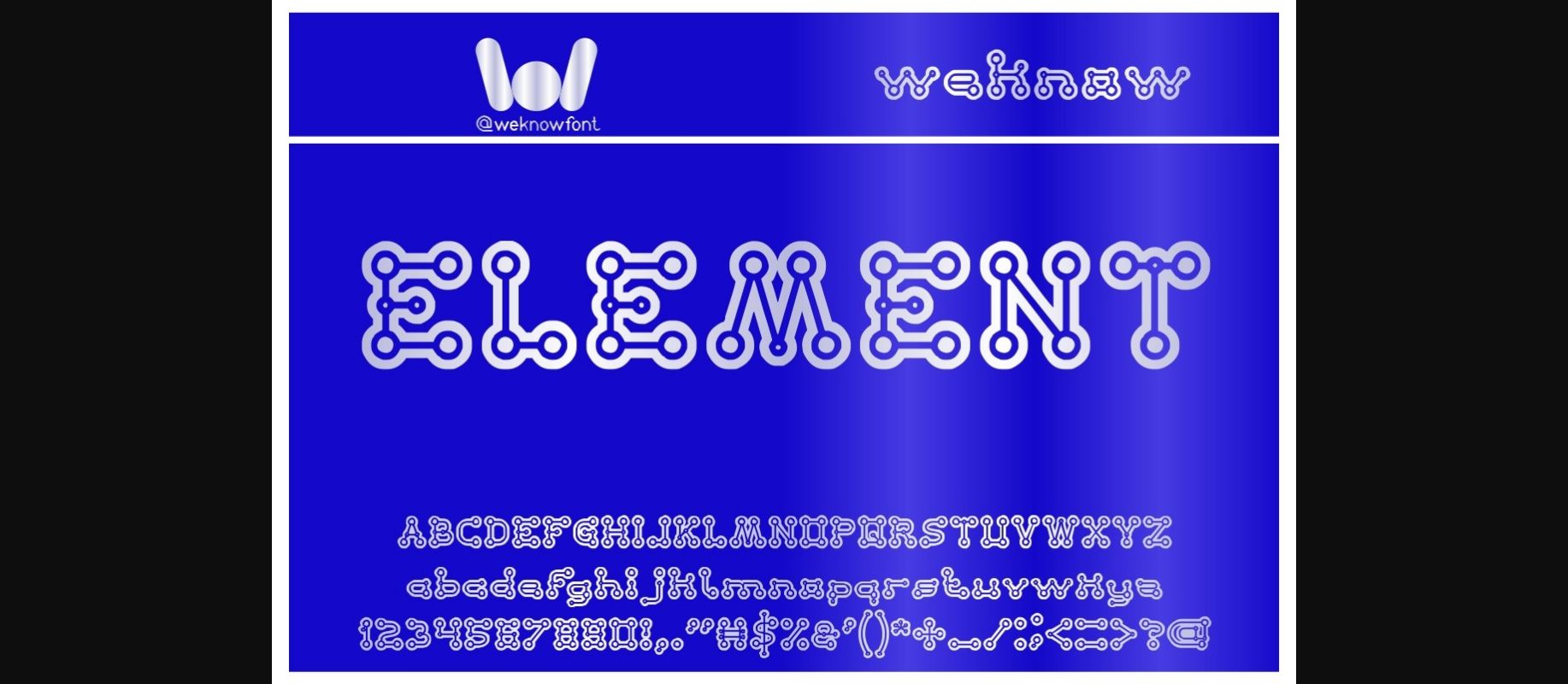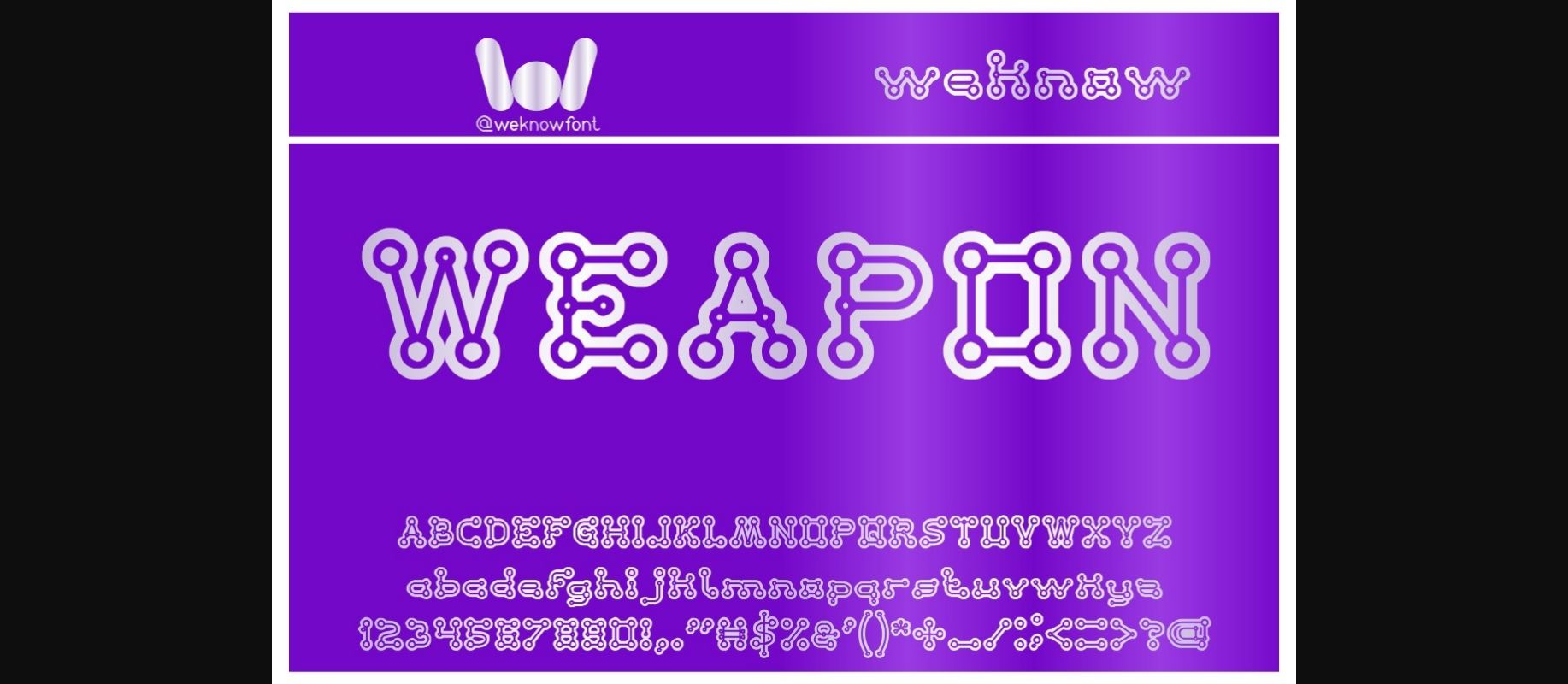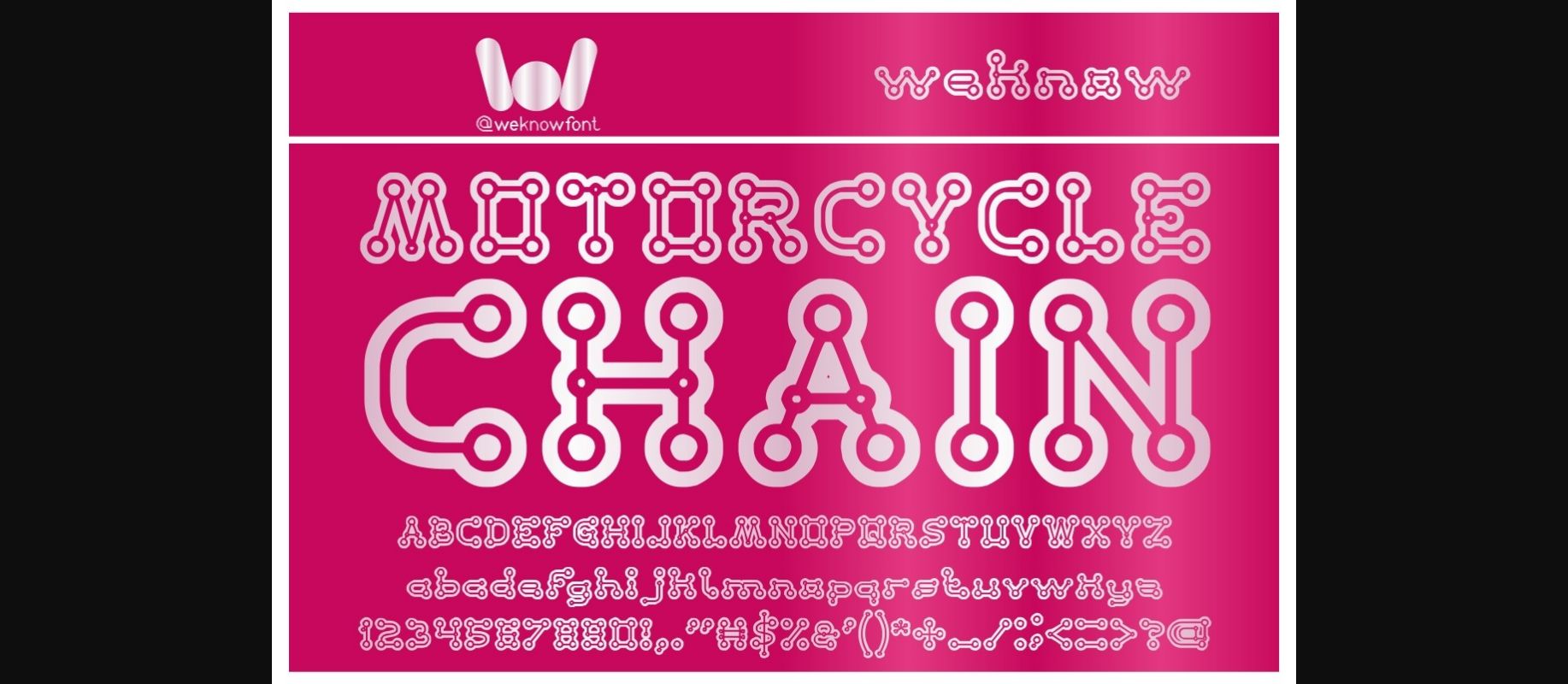
About Element Font
Element is a modern, cool and original looking decorative font. It is suitable for logotype, headline font, in corporate identity, brand identity, apparel industry, poster, music, movie, game, magazine, book, comic, cartoon, YouTube, Instagram, website, or any of your creative design projects.